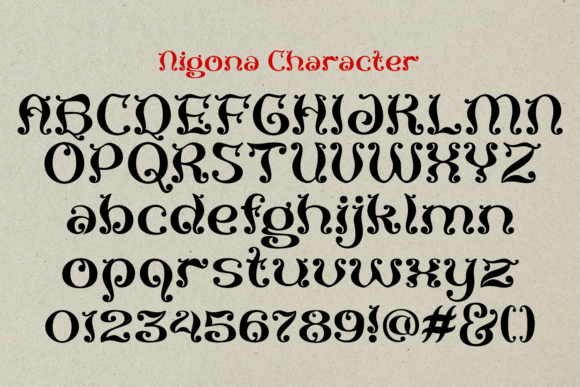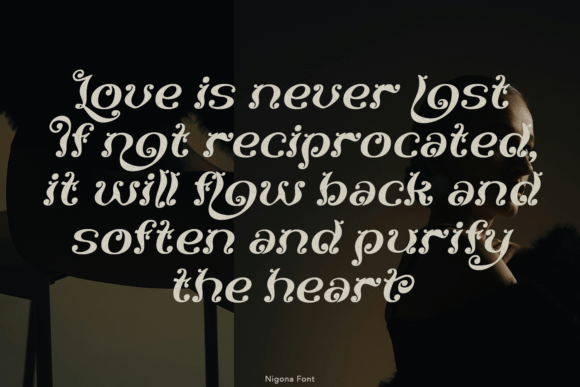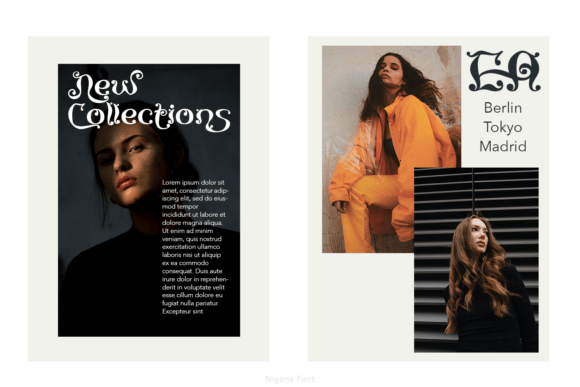
Introduction to Nigona Font
Do you remember the feeling of rummaging through your grandparents’ attic, uncovering old vinyl records and dusty magazines from the 1970s? The nostalgia is palpable, and the aesthetic is unmistakable. That’s where the Nigona Font comes in – a high-quality font inspired by the typography of the 70’s style.
As a designer, you’re always on the lookout for the perfect design resource to elevate your creative project. The Nigona Font is an excellent choice for those who want to add a touch of vintage and classic style to their work. With its unique and stylish design, this font is perfect for various display purposes, from book covers to product labels, logos, and even tattoo shop designs.
Key Features of Nigona Font
- Nigona Font is a high-quality, unique design resource ideal for creative projects requiring a distinctive touch.
- This font’s unique characteristics make it an excellent choice for designers seeking a creative and eye-catching design resource.
Honest Review: Nigona Font
As a designer, I’m always on the lookout for high-quality design resources to elevate my creative projects. Recently, I came across the Nigona Font, and I’m excited to share my honest review.
What works well: ✨ The Nigona Font is a beautiful, elegant script font that’s perfect for adding a touch of sophistication to your designs. I love the way it looks on a transparent background, making it a great choice for creative projects that require a subtle, yet impactful font. The font is also super easy to download and use, which is a big plus in my book.
- Beautiful, elegant script font
- Works well on transparent background
Limitations: ⚠️ While the Nigona Font is a great addition to any design resource collection, it’s worth noting that it’s a single font family, which means it may not be as versatile as some other font options on the market.
Overall, I’m really impressed with the Nigona Font. It’s a high-quality design resource that’s perfect for adding a touch of elegance to your creative projects. If you’re looking for a beautiful, easy-to-use font that’s free to download, the Nigona Font is definitely worth checking out.
The Nigona Font is perfect for a variety of creative projects, including graphic design, digital art, and typography. Its unique style and high-quality design make it a great choice for designers and artists looking to add a touch of elegance to their work.